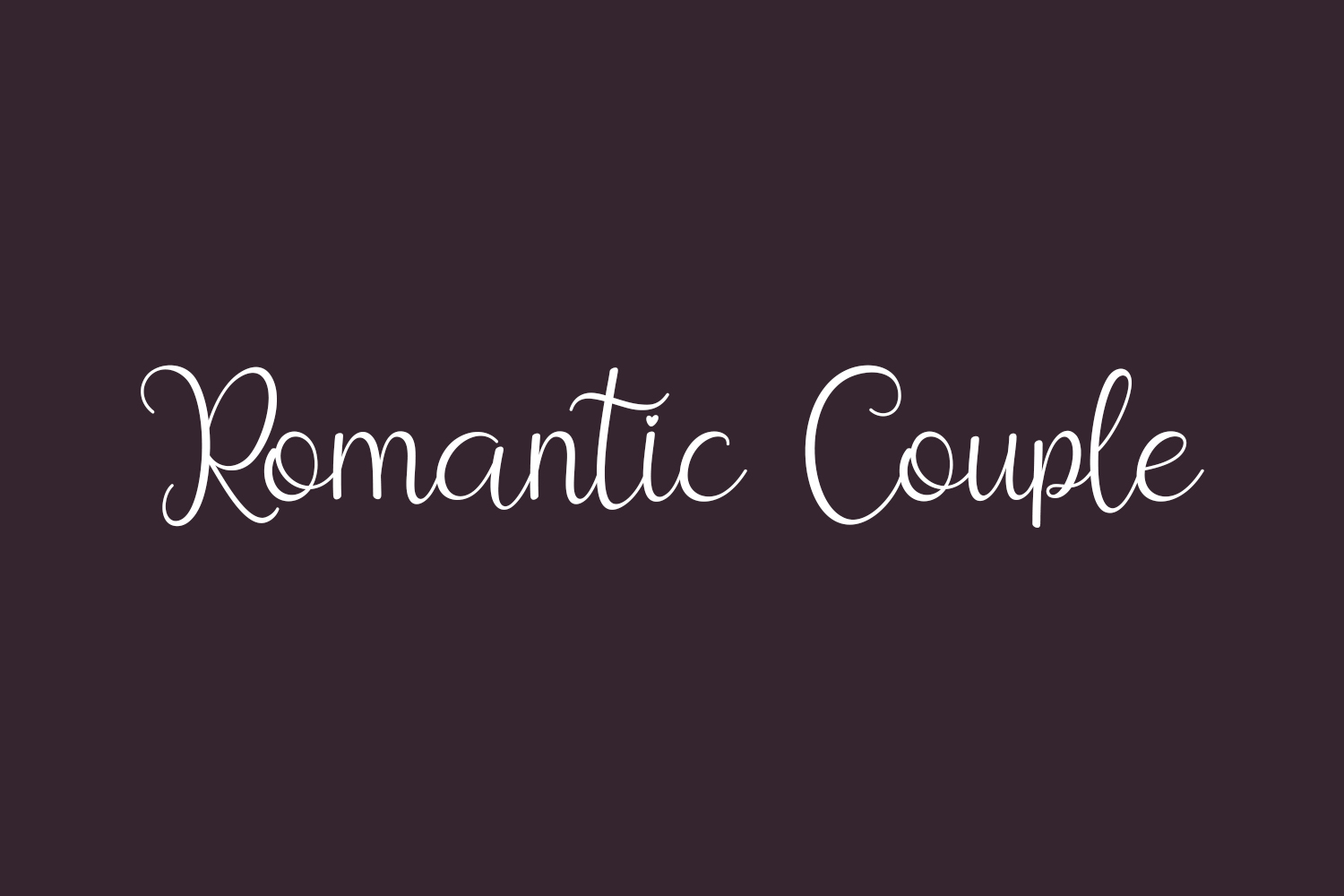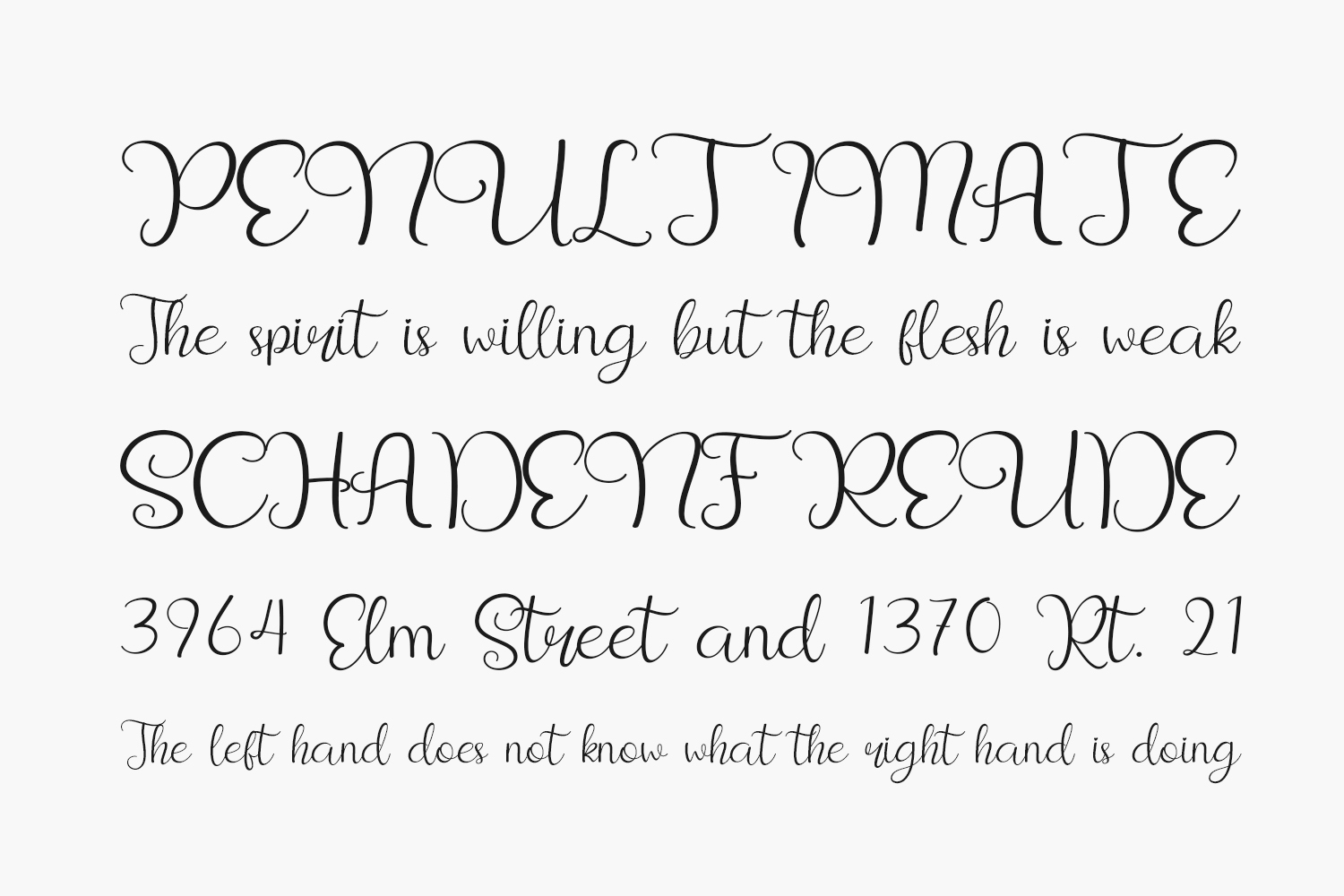
Romantic Couple Free Font is an elegant and flowing handwritten font. It is PUA encoded which means you can access all of the glyphs and swashes with ease! It features a varying baseline, smooth lines, gorgeous glyphs, and stunning alternates. It maintains its classy calligraphic influences while feeling contemporary and fresh. Romantic Couple Free Font was designed by Bearytype and is free for personal use only. Please purchase the full version for commercial use.